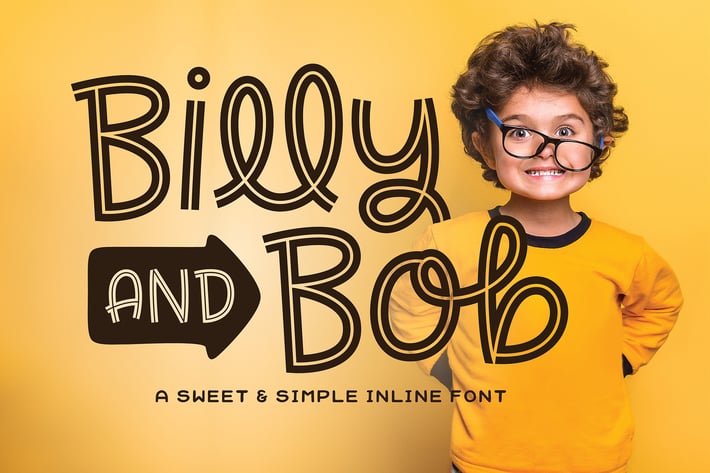
Billy and Bob Font
Introducing Billy and Bob! A sweet and simple inline font with several ligatures to create a playful, hand drawn look. Works best at larger sizes so that the details can be seen.